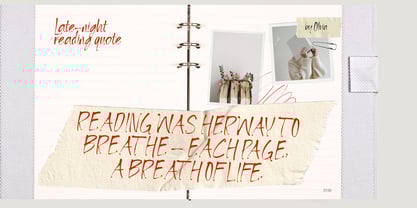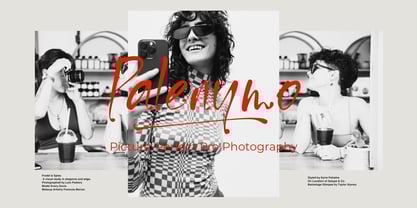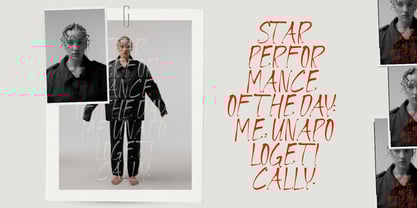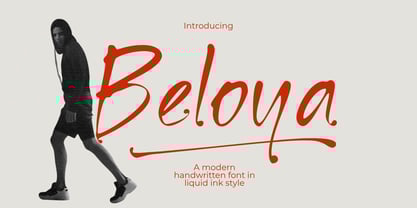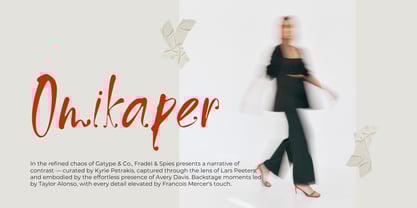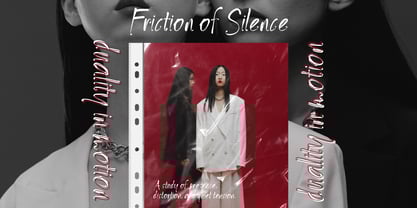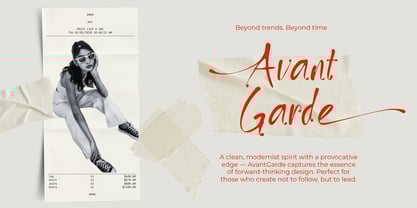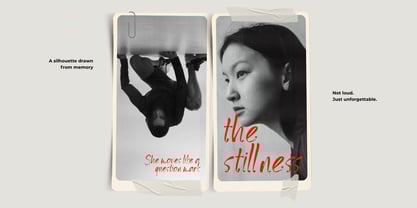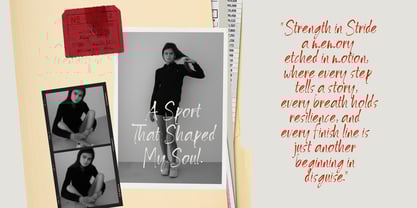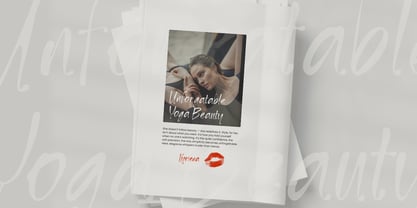
Beloya
by Gatype
The Beloya Font Family was designed by khaidir and published by Gatype. Beloya contains 1 styles. More about this family
Beloya – Modern Handwritten Font in Liquid Ink Style
Beloya is a sleek and expressive handwritten font that captures the beauty of liquid ink in motion. With fluid strokes, natural curves, and an effortlessly modern feel, Beloya brings authenticity and elegance to any design it touches.
Inspired by free-flowing handwriting and the organic textures of ink on paper, this typeface is perfect for branding, social media posts, signature logos, packaging, and creative editorial design. Whether used bold or subtle, Beloya makes a statement with personality and grace.
💧 Let every stroke tell your story — with the graceful flow of Beloya.